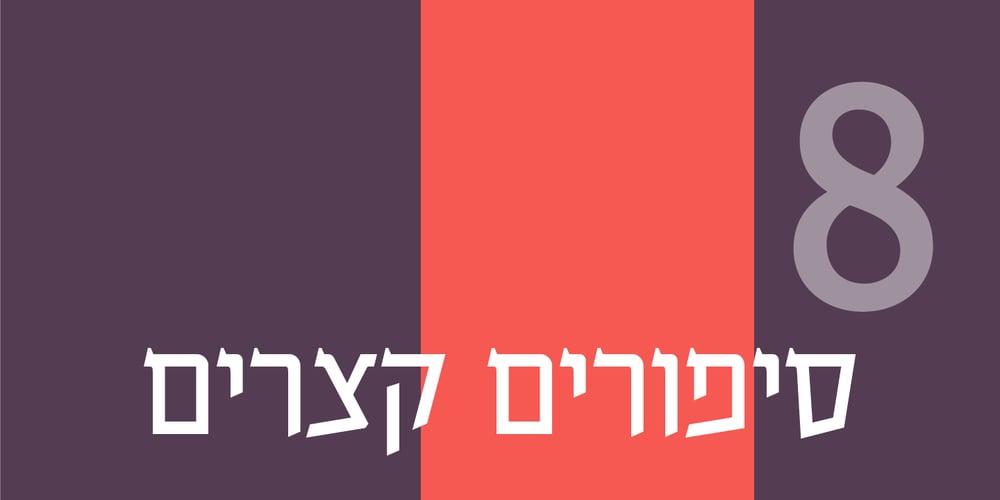
Balshan MF Font Family was designed by Zvika Rosenberg and published by Masterfont. Balshan MF contains 3 styles and family package options. Derived from old signage, this serif font is unique and readable in titles and text as well.